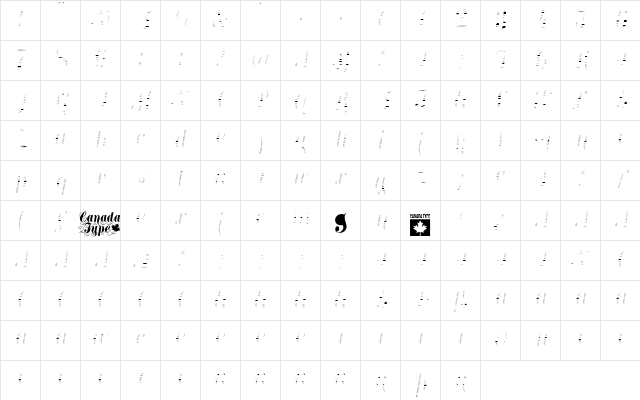
Treasury System Alt DSS Regular
Design Context for Treasury System Alt DSS Typeface
Treasury System Alt DSS takes a measured approach to typography — its balanced proportions and neutral character make it a reliable workhorse for both digital and print work.